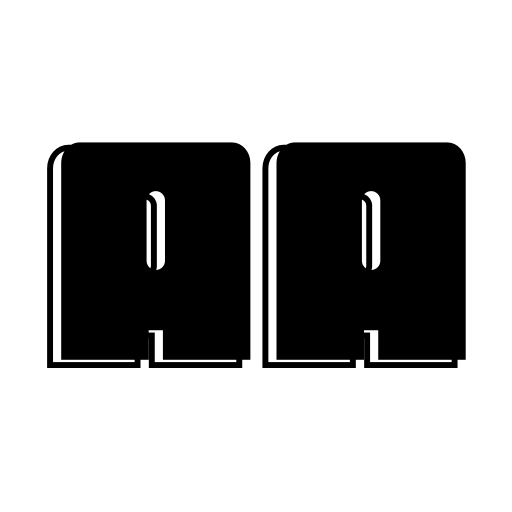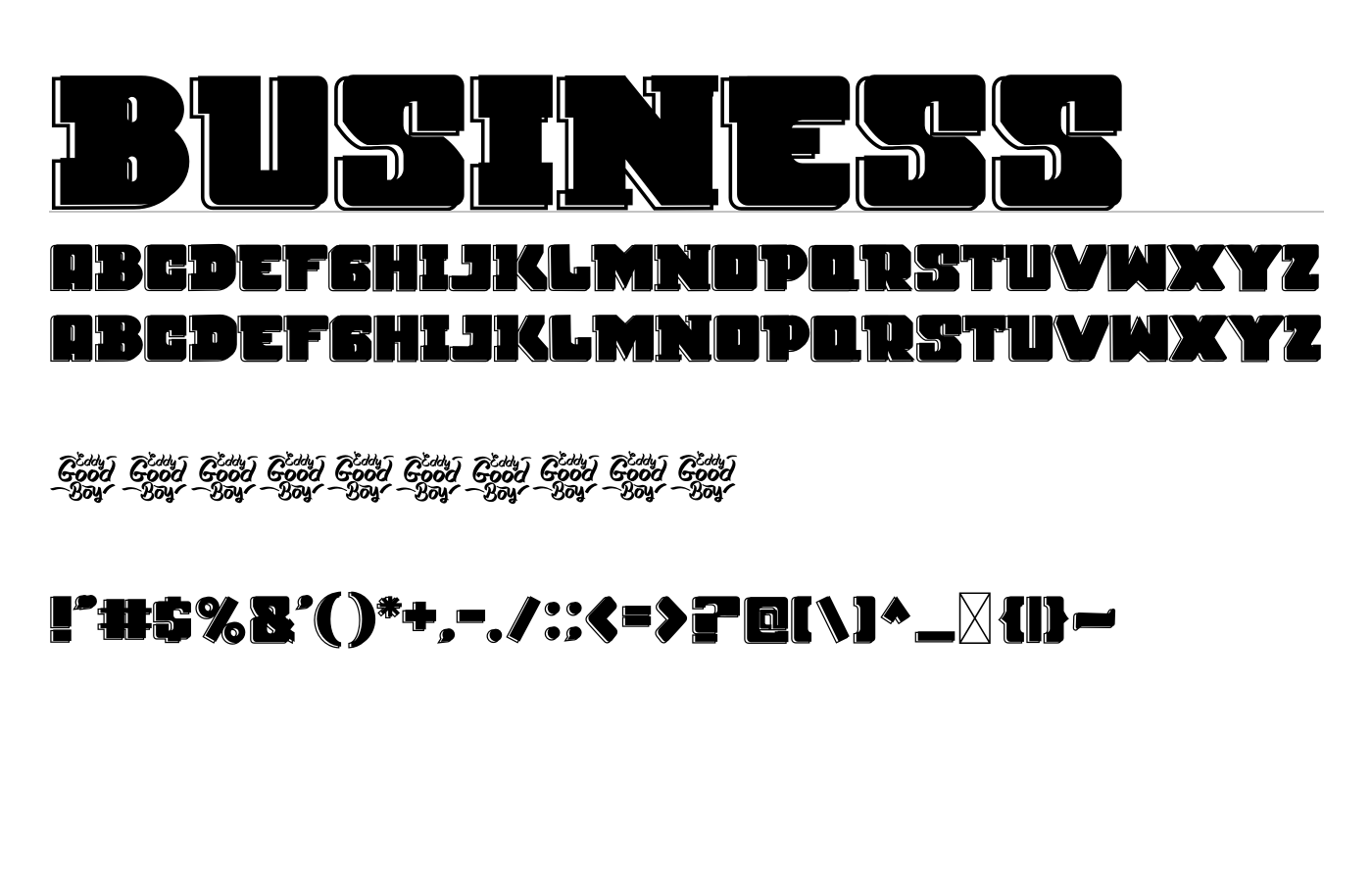
Business Font is a bold, slab serif typeface with a strong, condensed structure and high stroke contrast, giving it a powerful and commanding presence. Its thick, block-like serifs combined with slightly softened edges make it ideal for eye-catching headlines or logos that need to convey reliability and strength. This font works best in branding, posters, and editorial designs where a bold statement with a vintage, confident feel is desired.
Business Font
About Business Font
| Font family | Business Font |
| Designer | Nur Edi Prayitno |